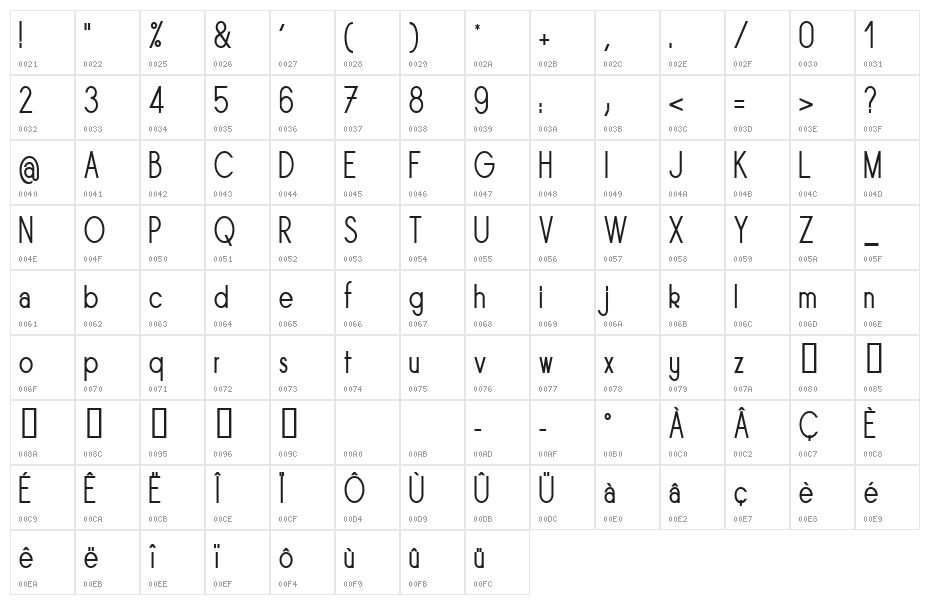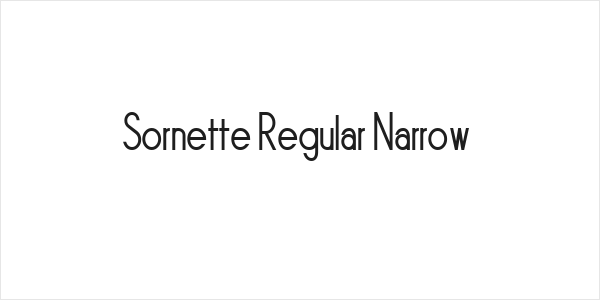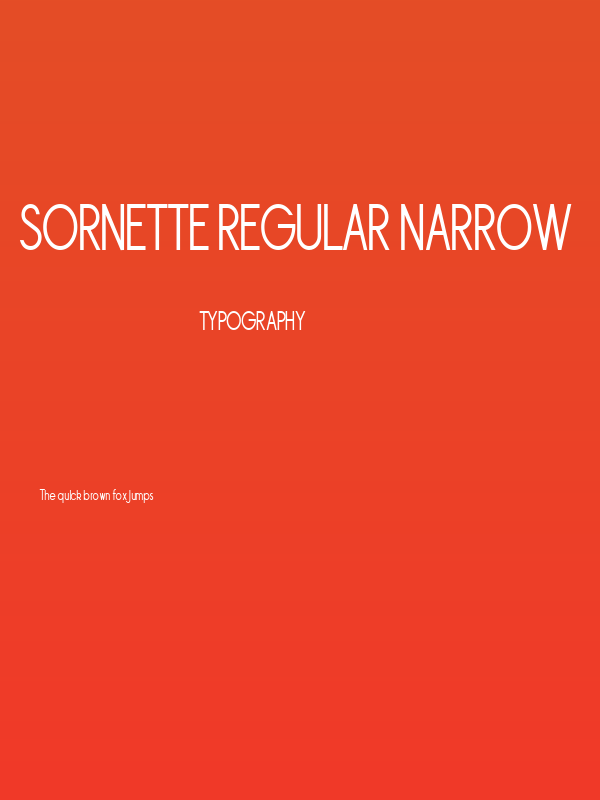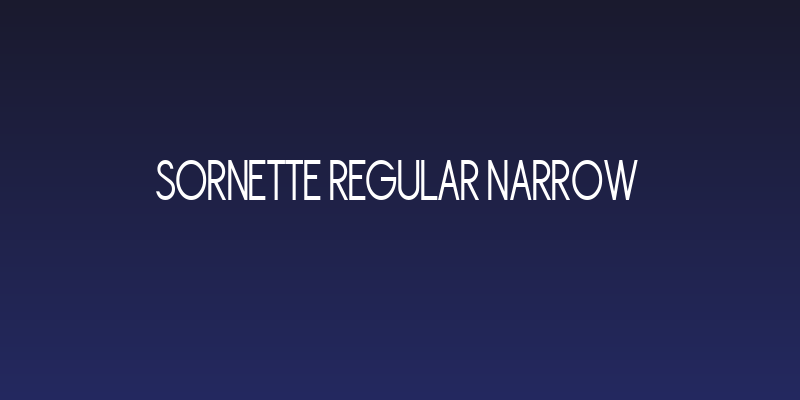
Sornette Regular Narrow Font
Sornette Regular Narrow Description
This font features a clean and modern sans-serif style with a narrow width, giving it a sleek and contemporary appearance. The characters are well-defined with consistent stroke widths, providing a uniform and balanced look. The uppercase letters are tall and elegant, while the lowercase letters maintain a smooth and cohesive flow. The numerals are clear and easily distinguishable, making them suitable for various applications. Special characters are included, adding versatility to the font's use. Overall, this font exudes a sense of professionalism and modernity, making it ideal for projects that require a refined and stylish touch.
| Proposed Projects | Ideal for branding, editorial design, advertising, and web design projects that require a modern and clean aesthetic. |